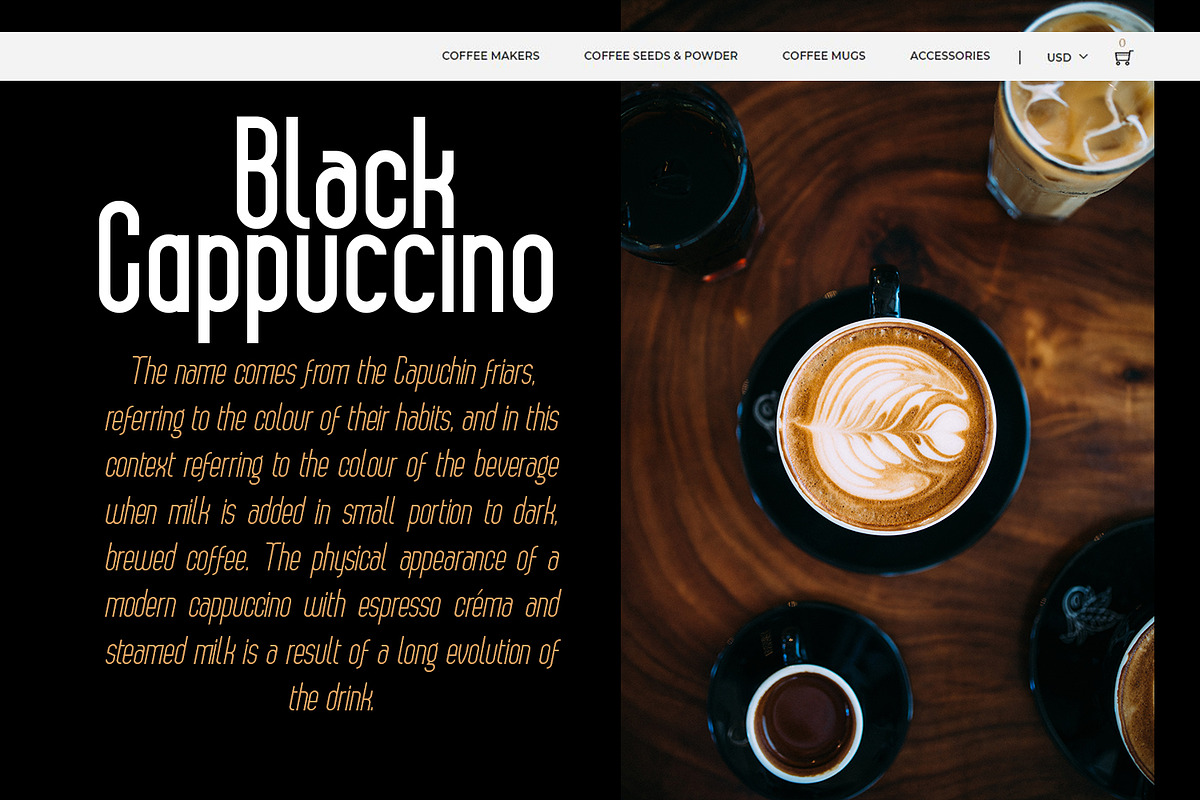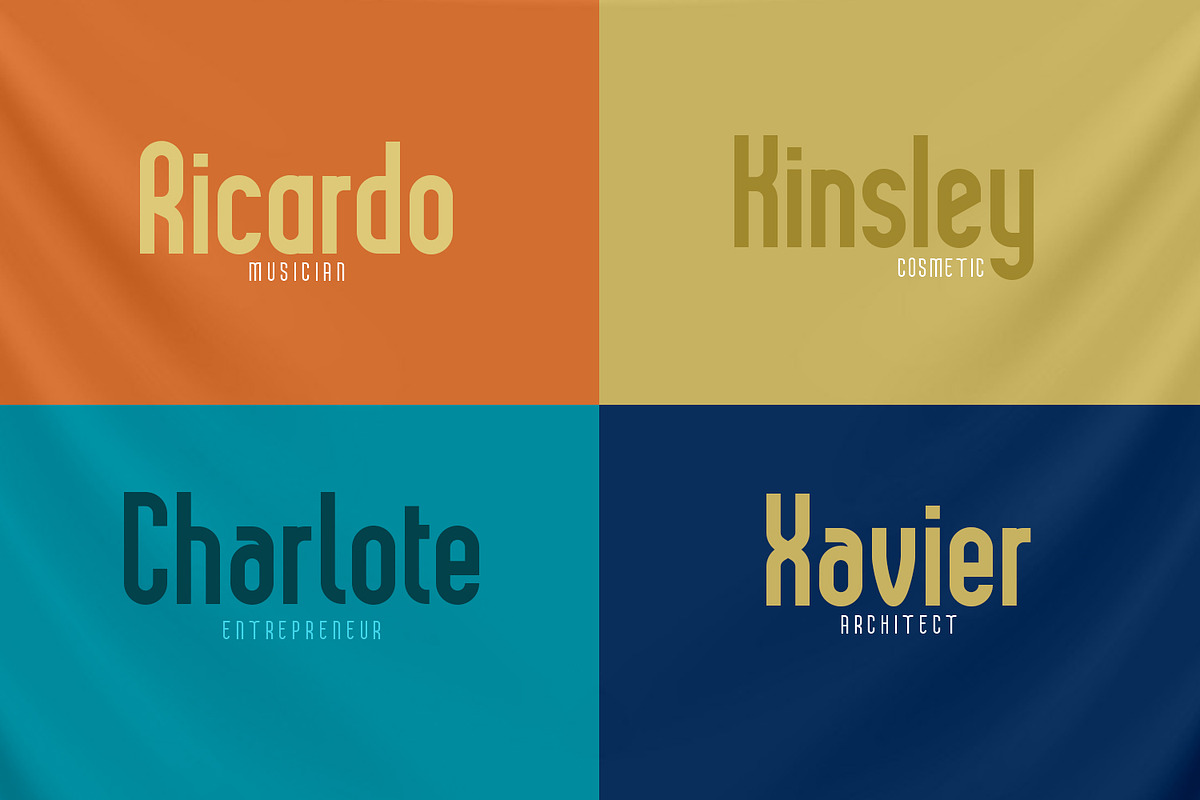
Really excited to introduce
Delvon is a modern sans serif font family. suitable to create any branding, product packaging, invitation, qoutes, t-shirt, label, poster, logo etc.